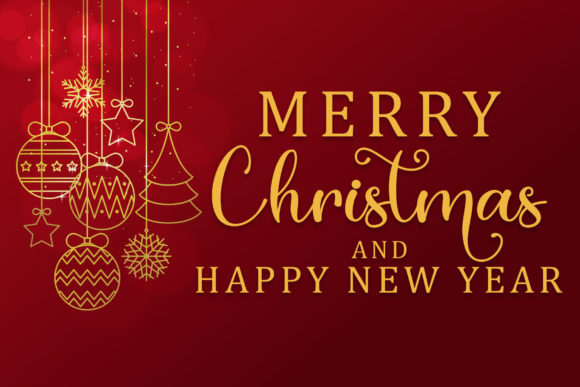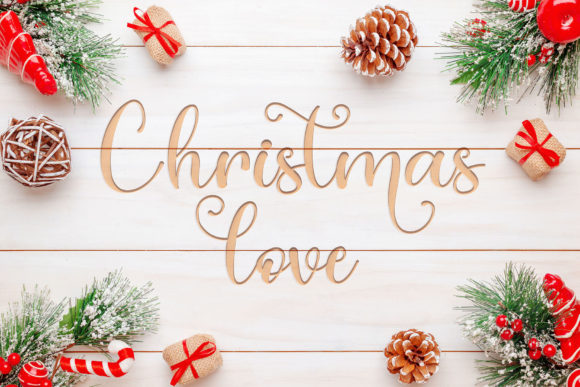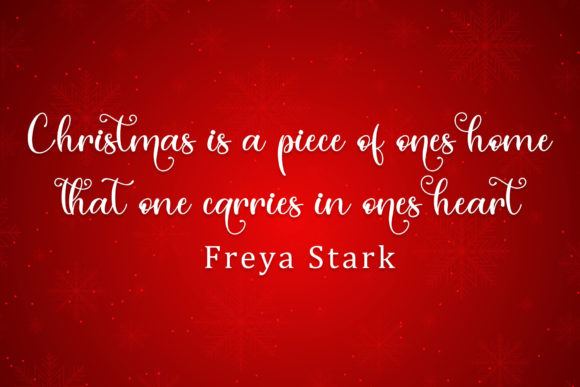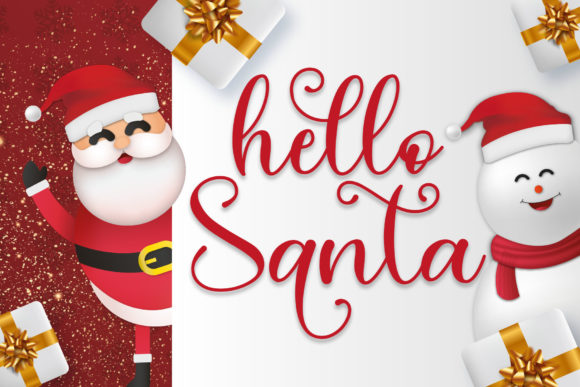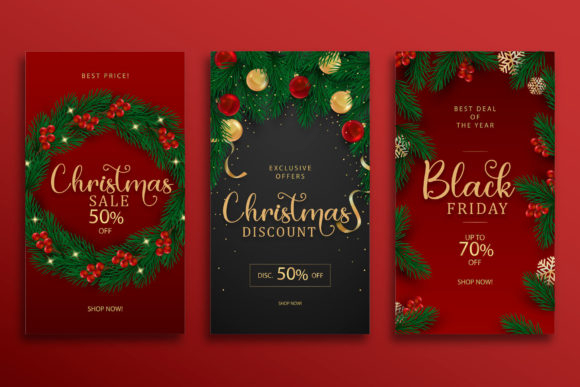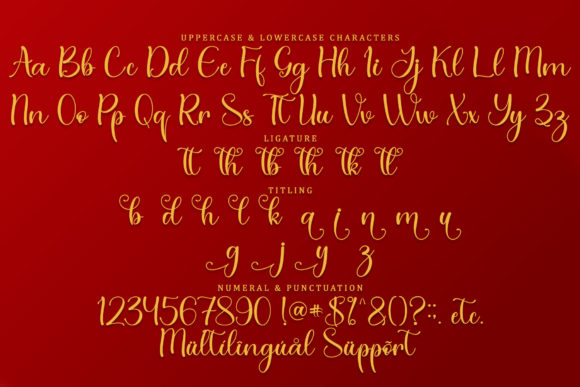
Deck the Halls with Style: Introducing the Christmas Theme Font
As the holiday season approaches, I find myself flipping through design ideas, searching for the perfect way to capture the magic of Christmas. Whether it’s a festive holiday card, a beautiful advent calendar, or a winter wonderland-inspired invitation, the right font can make all the difference.
That’s where the Christmas Theme Font comes in – a stunning, handwritten font that adds a touch of luxury to any design project. With its elegant script and beautiful flourishes, this font is sure to make your holiday designs stand out from the crowd. And with its PUA encoding, you’ll have access to all the amazing glyphs and ligatures you need to create truly show-stopping designs.
Christmas Theme Font Key Features
- Unique Characteristics: The font features a festive and playful design, with intricate details and ornaments that evoke a sense of holiday cheer.
- Character Set: The font includes a wide range of characters, including uppercase and lowercase letters, numbers, punctuation marks, and special symbols.
- Style Options: The font comes in 3 styles: Regular, Bold, and Italic, allowing users to choose the perfect look for their designs.
Designer Review: Christmas Theme Font
I was excited to dive into the Christmas Theme Font and see how it fares in the world of typography. Overall, it’s a decent addition to any festive project, but it has its strengths and weaknesses. Let’s break it down!
What Works Well: ✨
- Unique and playful feel, perfect for holiday-themed projects.
- The font is highly customizable, allowing users to adjust the colors and sizes to fit their needs.
- The font includes a range of festive symbols and ornaments, adding to its holiday charm.
Limitations: ⚠️
- The font’s overall quality could be improved, with some characters appearing pixelated or blurry at larger sizes.
- The symbol set is somewhat limited, with only a few ornaments and no additional characters.
- The font’s usage is mostly restricted to holiday-themed projects, limiting its versatility.
Overall, the Christmas Theme Font is a fun addition to any festive project. While it has its limitations, it’s a great option for those looking to add a playful touch to their holiday designs. With some tweaks and additions, this font could be even more impressive.
Tips for Getting the Most Out of Christmas Theme Font
For maximum impact, use Christmas Theme Font in conjunction with festive graphics and colors. Experiment with different font combinations and sizes to create a unique look. Don’t forget to adjust the font settings to match your design’s tone and style.
Christmas Theme Font is ideal for holiday-themed projects, such as:
– Christmas cards and invitations
– Holiday party invitations and decorations
– Social media graphics and ads
– Blog posts and articles about holiday traditions and recipes